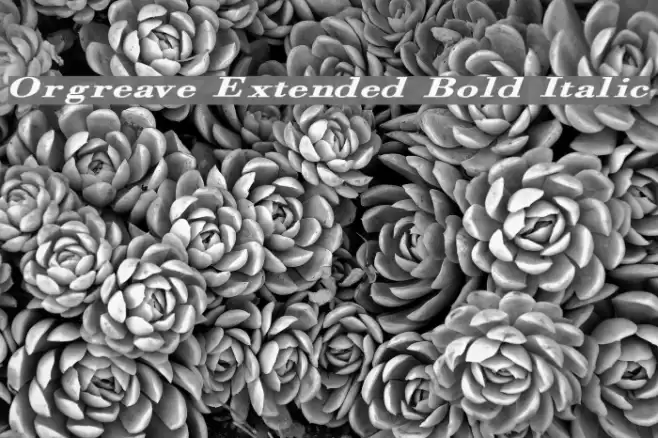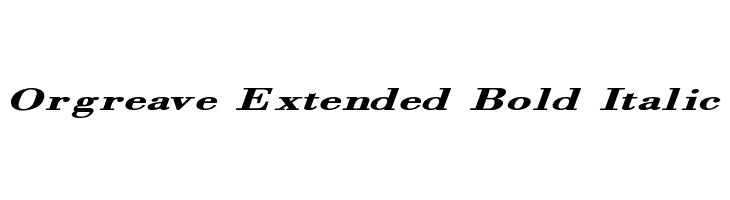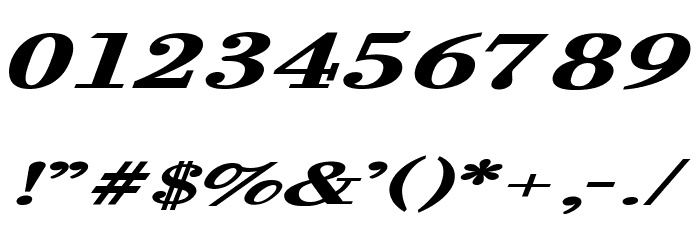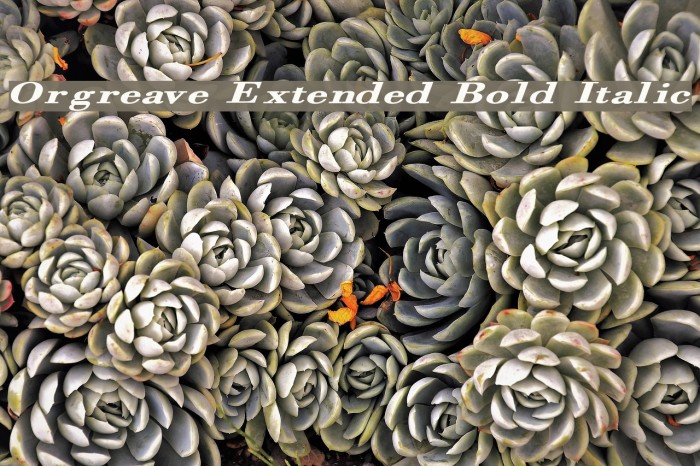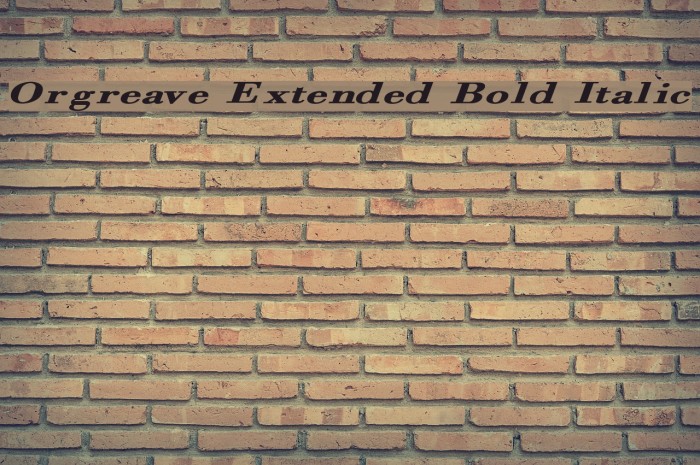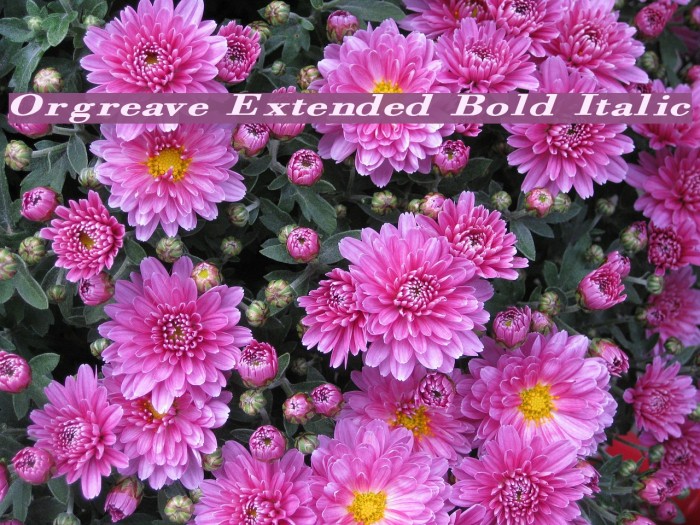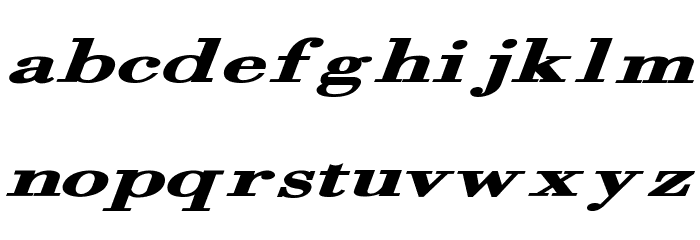
Orgreave Extended Bold Italic Font
Orgreave Extended Bold Italic Description
This font features a bold and italic style with extended width, giving it a strong and dynamic presence. The characters are well-defined with a noticeable slant, adding a sense of motion and elegance. The uppercase letters are prominent and commanding, while the lowercase letters maintain a consistent flow. The numerals are clear and robust, matching the overall boldness of the font. Special characters are distinct and integrate seamlessly with the alphanumeric characters, ensuring versatility in various design contexts.
A bold, italic, and extended font with a dynamic and elegant style from Uncategorized fonts.
- Proposed Projects: Ideal for branding, headlines, and advertising materials where a strong and stylish impact is desired.